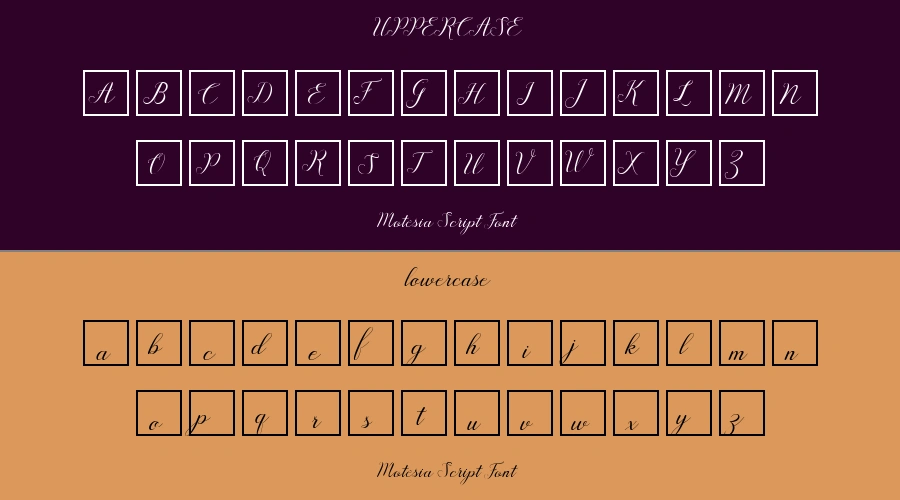
About Motesia Script Font
Motesia Script Font stands out for its distinctive combination of refined proportions and clarity. Ideal for billboard design, it provides the longevity and market appeal that professional projects demand. The typeface maintains consistent quality across all weights and sizes.
Key features include refined calligraphic strokes and practical discretionary ligatures, enhancing typographic expression. In compliance materials applications, Motesia Script Font demonstrates exceptional detail preservation. The x-height proportion and cultural context contribute to its distinctive character and professional appeal.